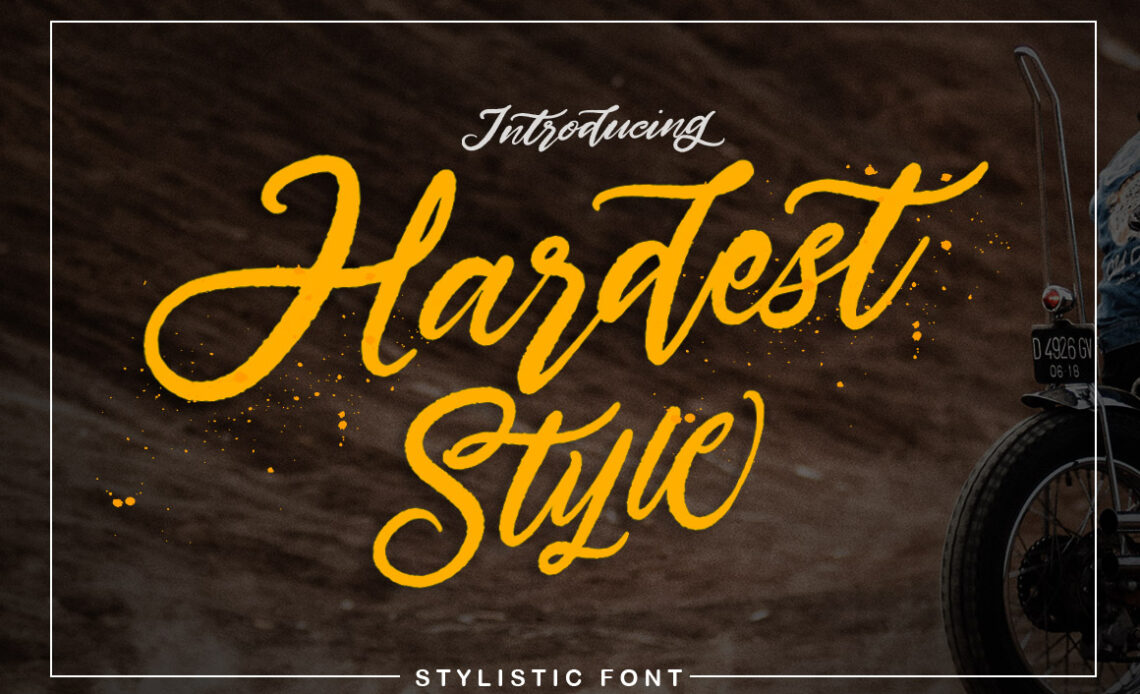
Hardest Style Font
Prepare to be taken on a calligraphic odyssey with Hardest Style Font, a masterpiece crafted by the ingenious minds at Mindtype Co. This breathtaking script font dances across the digital canvas with unmatched elegance and grace, leaving an unforgettable impression on every design it graces.
Hardest Style Font is not merely a collection of letters; it's a gateway to a world of artistic expression. Whether you're a seasoned designer or just beginning your typographic journey, this font will ignite your creativity and empower you to craft designs that captivate and inspire.
Its meticulously crafted brush strokes evoke a sense of authenticity and charm, mirroring the fluidity of handwritten calligraphy. Each character exudes a personality of its own, adding a touch of intimacy and uniqueness to your creations.
Hardest Style Font's versatility is as remarkable as its beauty. Its dynamic nature makes it adaptable to a myriad of design styles, from vintage retro to modern chic. Whether you're designing logos, branding materials, wedding invitations, or social media graphics, this font will seamlessly complement your vision.
Step into the realm of typographic excellence with Hardest Style Font. Its captivating curves and graceful lines will transform your designs into works of art, leaving a lasting impression on your audience.
Embrace the power of calligraphy and unleash your creativity with Hardest Style Font, the ultimate choice for designers seeking individuality, elegance, and timeless appeal.